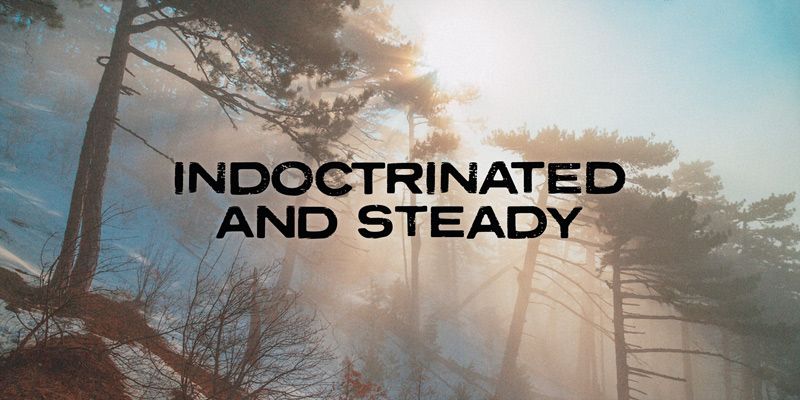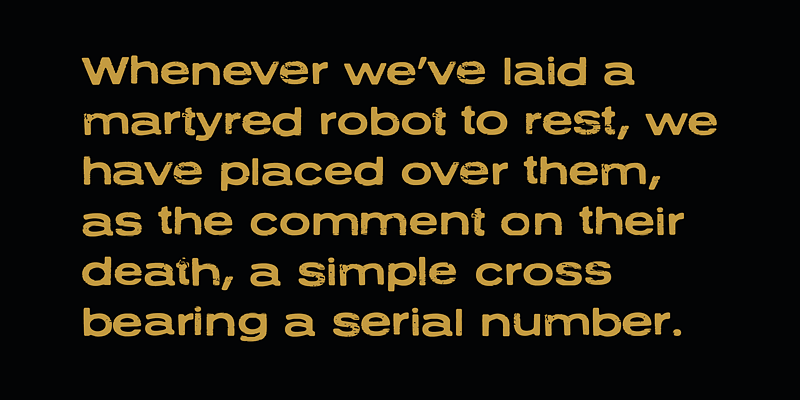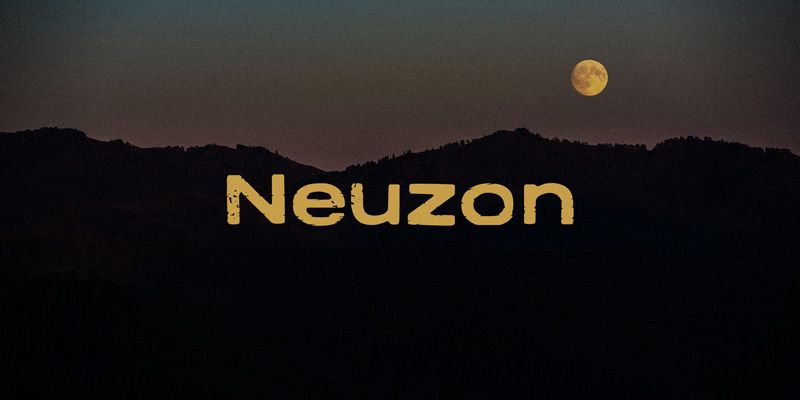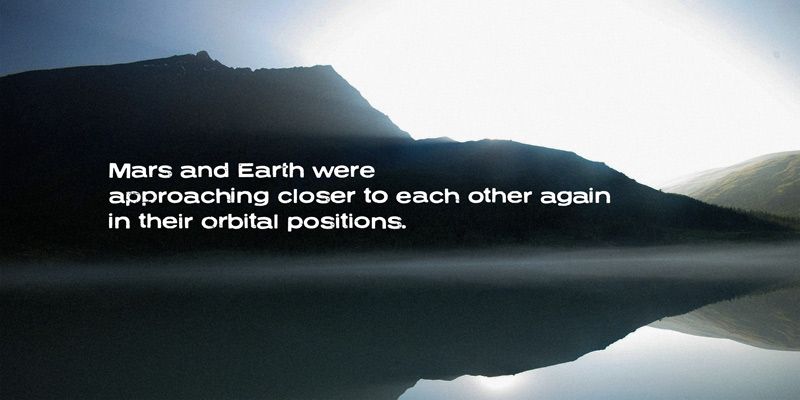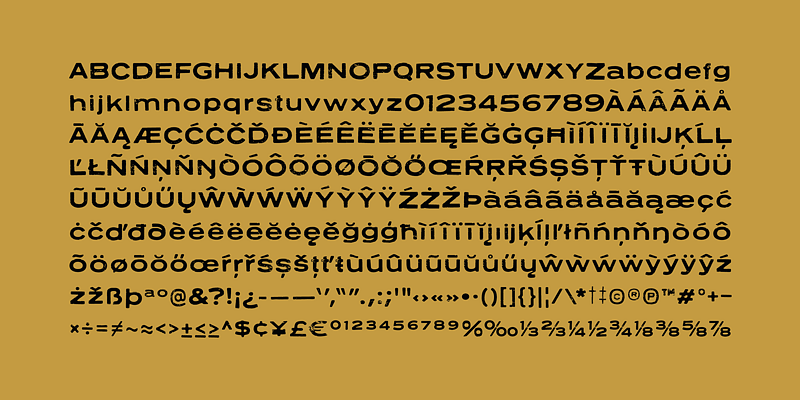
Neuzon is a very wide, inky display face based on the old metal type Tempo Bold Extended. Its worn surface makes the broad geometry feel printed and handled rather than freshly drawn on a screen. Letter-pair ligatures can vary repeated forms in applications that support them, helping a title avoid the obvious repetition of a digital texture. Use Neuzon for a short product name, poster headline, music sleeve, or heritage-flavored package where the impression of physical ink is central. It needs generous horizontal room; a few carefully chosen words will make more of it than a dense paragraph.